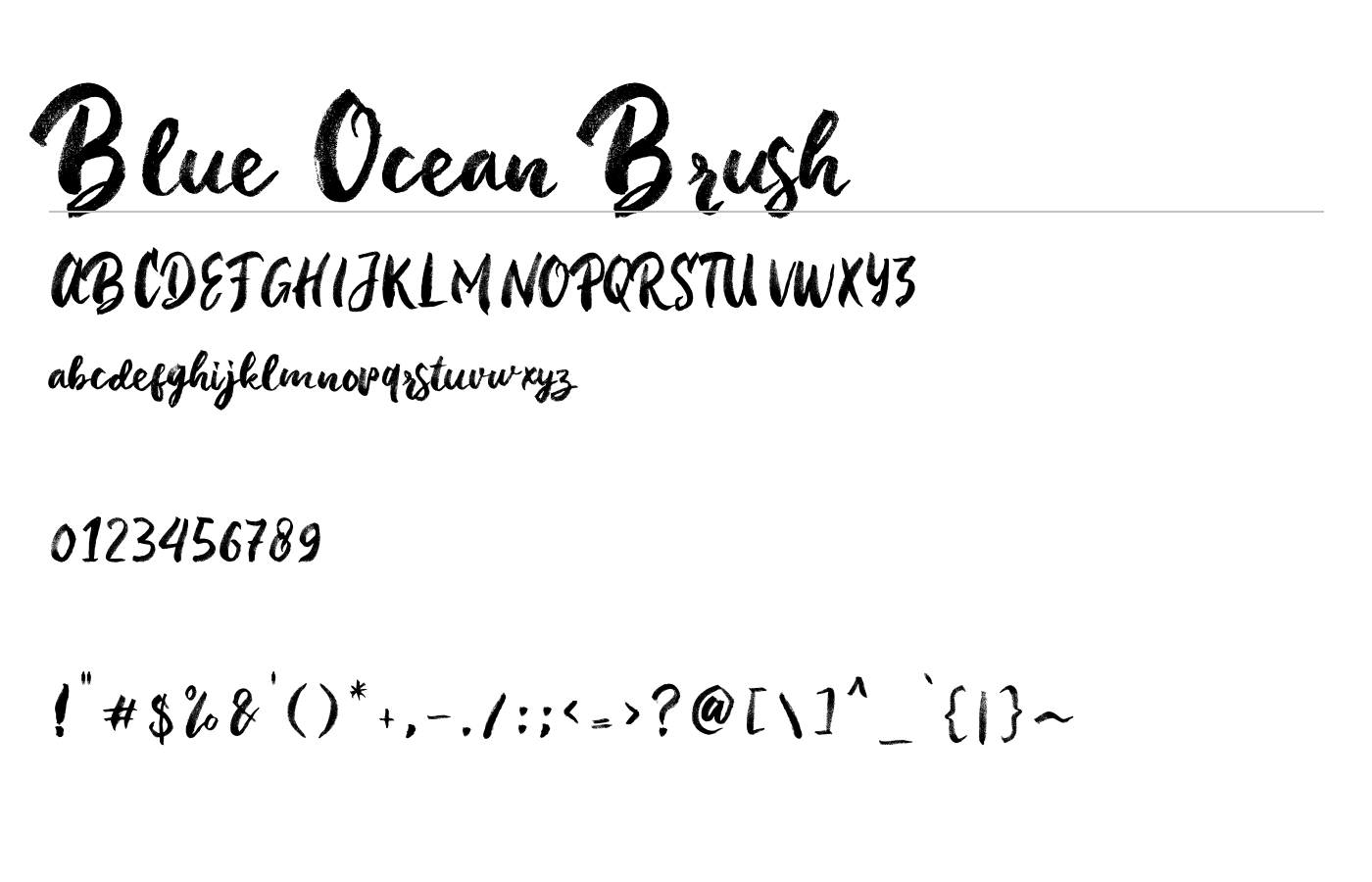
Blue Ocean Brush is a lively and bold script font that captures the spontaneous beauty of hand-painted brush strokes with its textured, organic lines and casual flow. Its dynamic weight and slightly imperfect letterforms give it a friendly, artistic vibe, making it perfect for creative branding, invitations, and any design seeking a personal, expressive touch. This font works well for projects that want to convey warmth, energy, and an authentic handcrafted feel.
Blue Ocean Brush Font
About Blue Ocean Brush Font